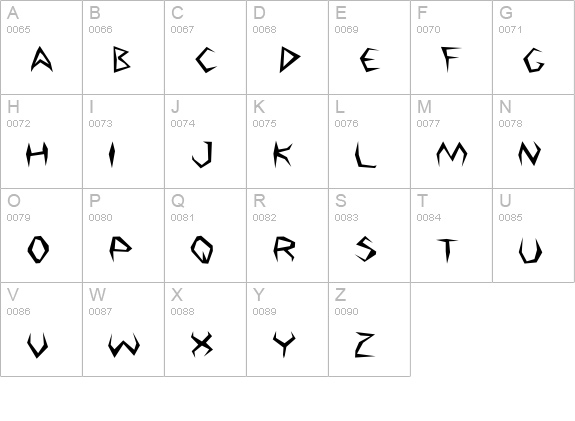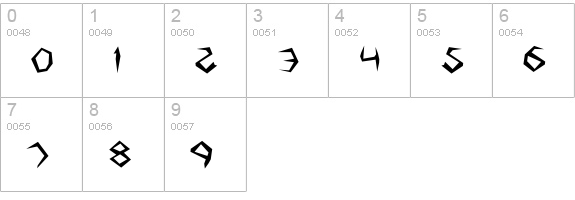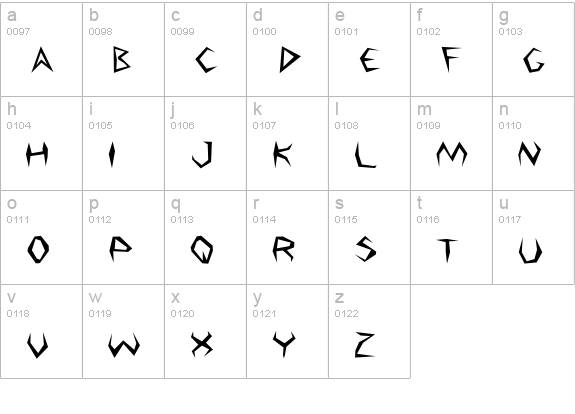
Argosy Font Details
Argosy font is a modern and elegant typeface that exudes sophistication and style. Its sleek lines and balanced proportions make it perfect for a wide range of design projects, from branding to editorial layouts. The versatility of Argosy font allows it to seamlessly adapt to various styles and themes, making it a valuable addition to any designer's toolkit. One of the best things about Argosy font is that it is completely free to download. You can easily access this beautiful typeface at FontsMarket.com, where you can find a wide selection of high-quality fonts for all your creative needs. Whether you're working on a website, a poster, or a logo, Argosy font will bring a touch of elegance and sophistication to your designs. Download it today and elevate your projects with this stunning typeface.